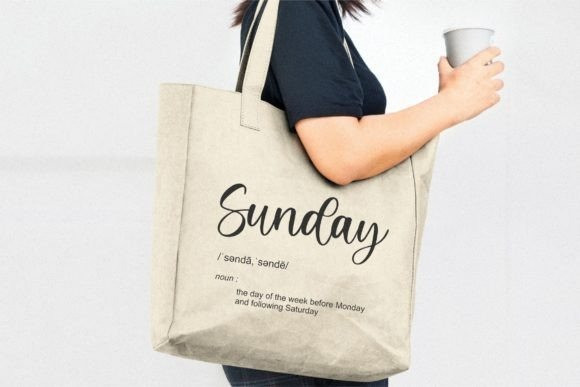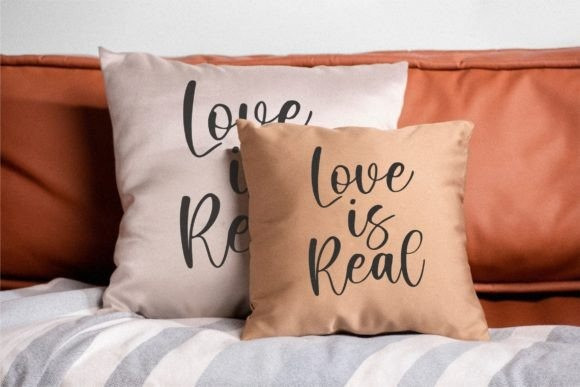
Aniba Font
Aniba Calligraphy Font is a thin and casual handwritten font. Fall in love with its incredibly versatile style and use it to create gorgeous wedding invitations, beautiful stationary art, eye-catching social media posts, and much more!